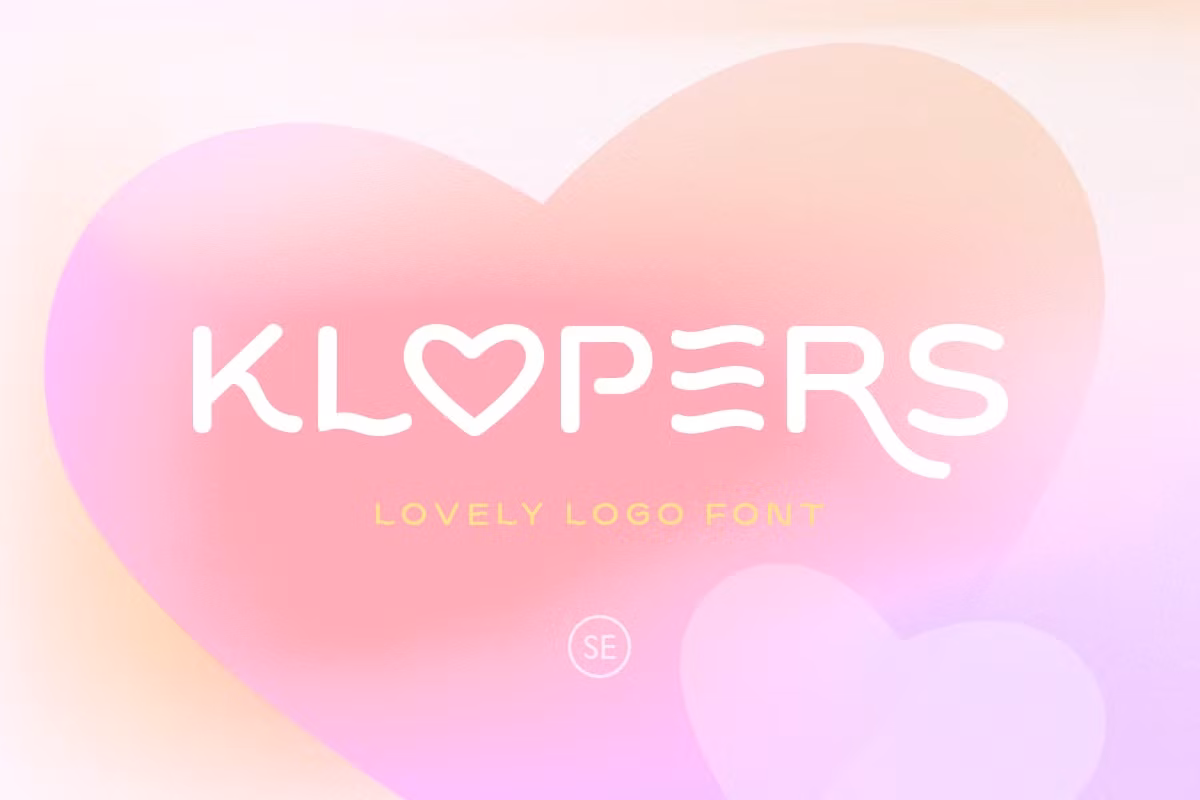
Klopers - Lovely Logo Font Free Download is a charming and stylish typeface crafted with branding in mind. With its soft curves, elegant flow, and modern aesthetic, Klopers is perfect for logos, packaging, social media, fashion branding, and beauty-related designs. It delivers a high-end, feminine vibe that feels both professional and approachable.
Using the Klopers - Lovely Logo Font Free Download brings a personal, handcrafted touch to your projects while keeping the overall look clean and sophisticated. It’s designed to stand out in minimalist layouts, offering a strong identity with gentle character. Whether you're creating a boutique logo or a stylish header, Klopers adds that refined detail your design deserves.